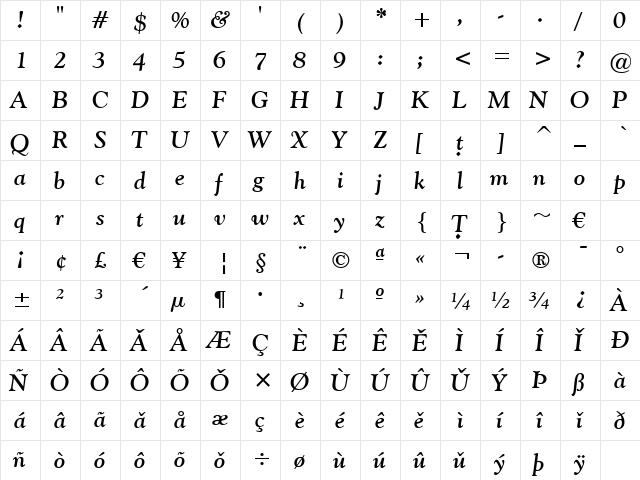
VANIEL 2 Bold Italic
Design Context for VANIEL 2 Typeface
VANIEL 2 is a composed and adaptable typeface that performs quietly and consistently across a wide range of design contexts. The slanted form adds forward momentum and visual energy. Its bold stroke weight gives it real presence on the page.
Pro Tip: Use VANIEL 2 for emphasis, pull quotes, and subheadings where its slanted energy can add rhythm to the layout.